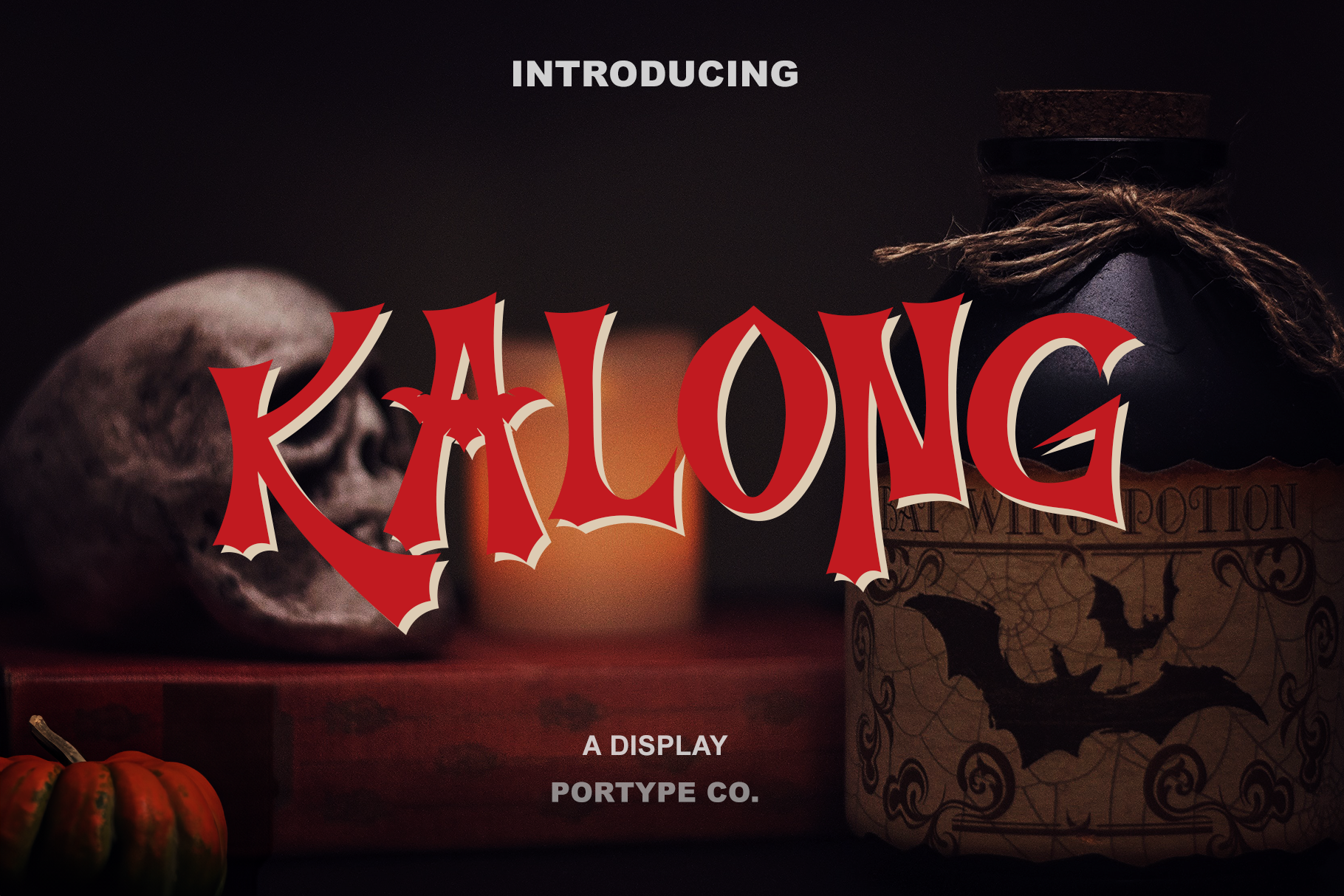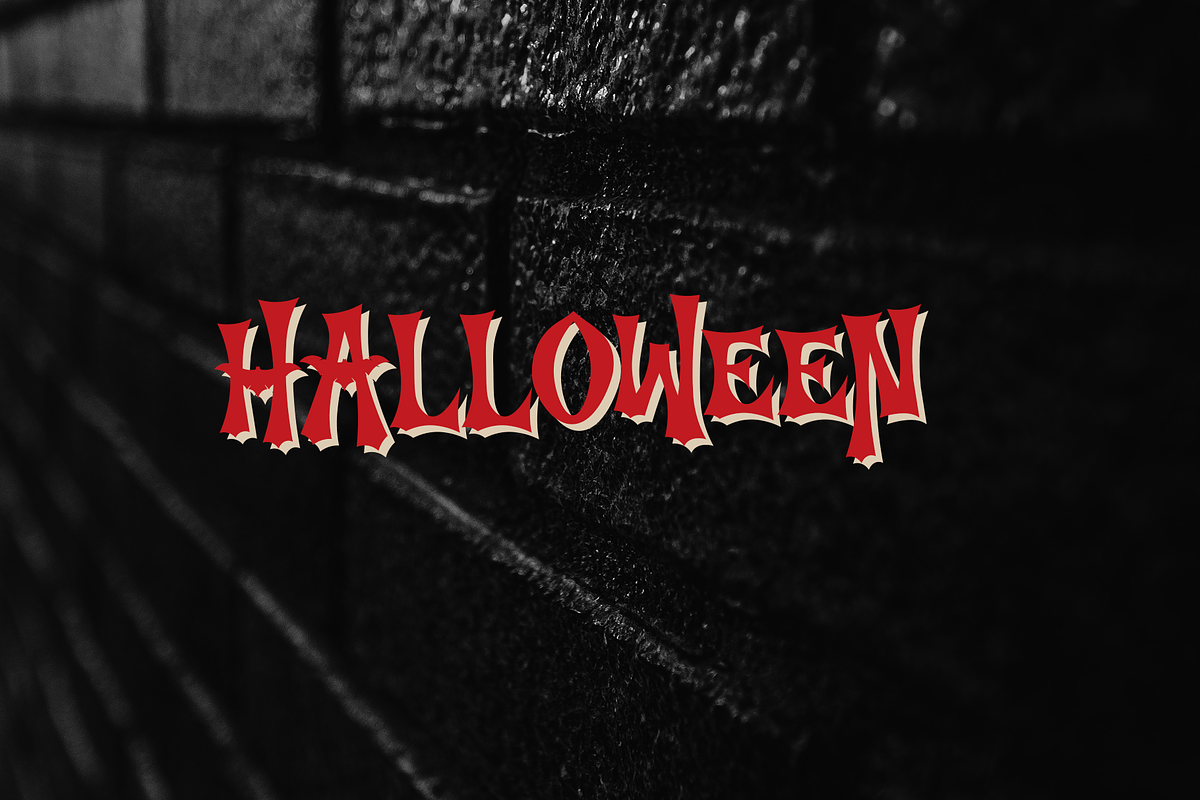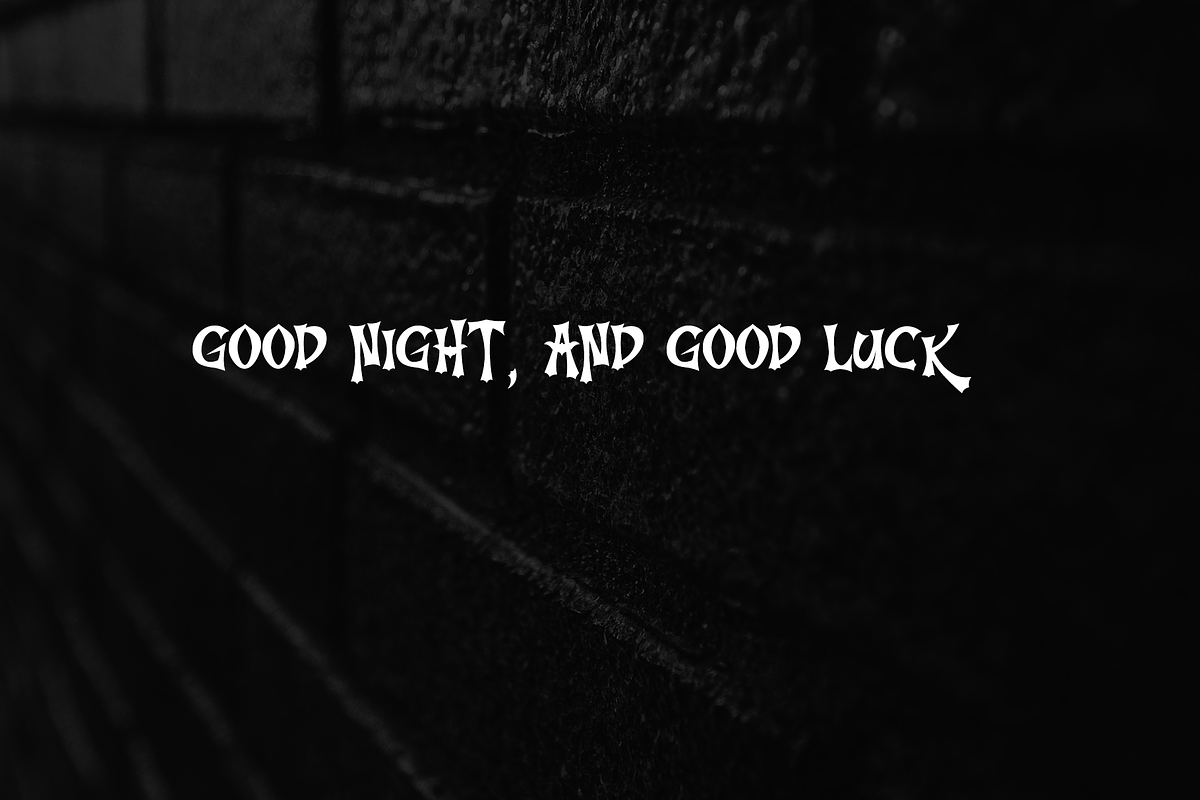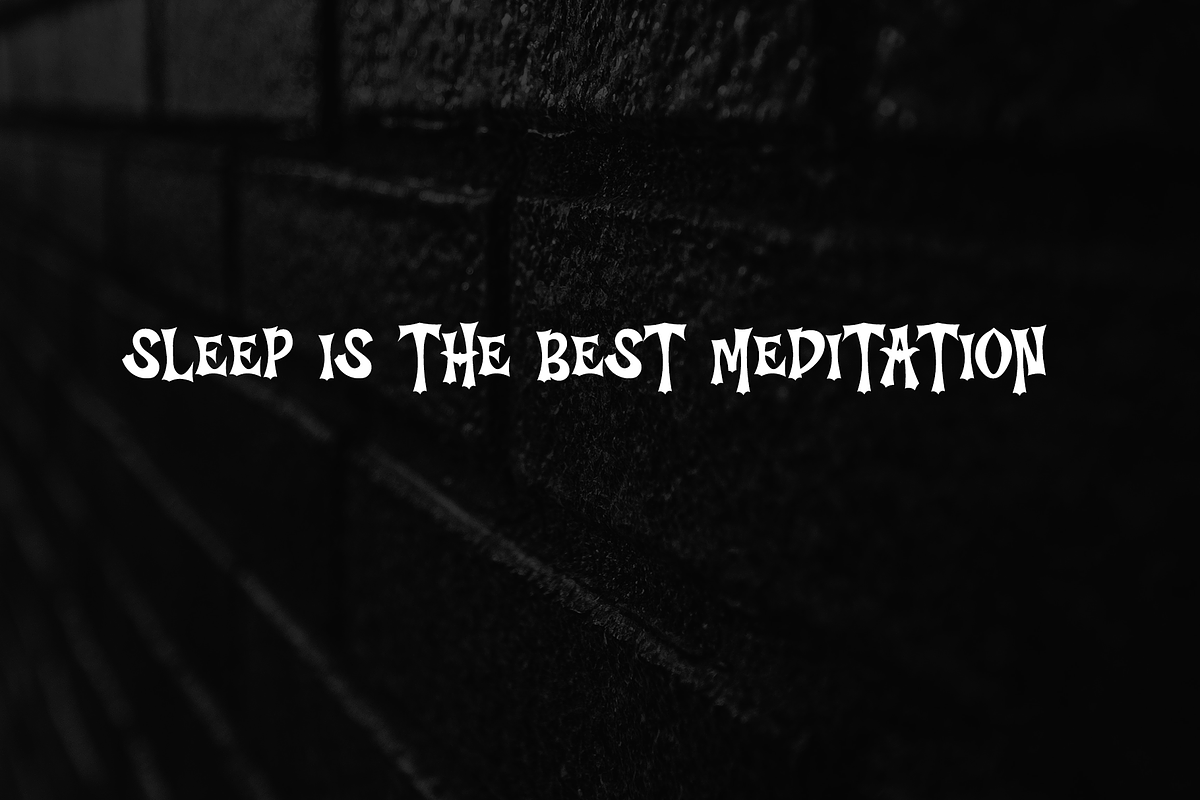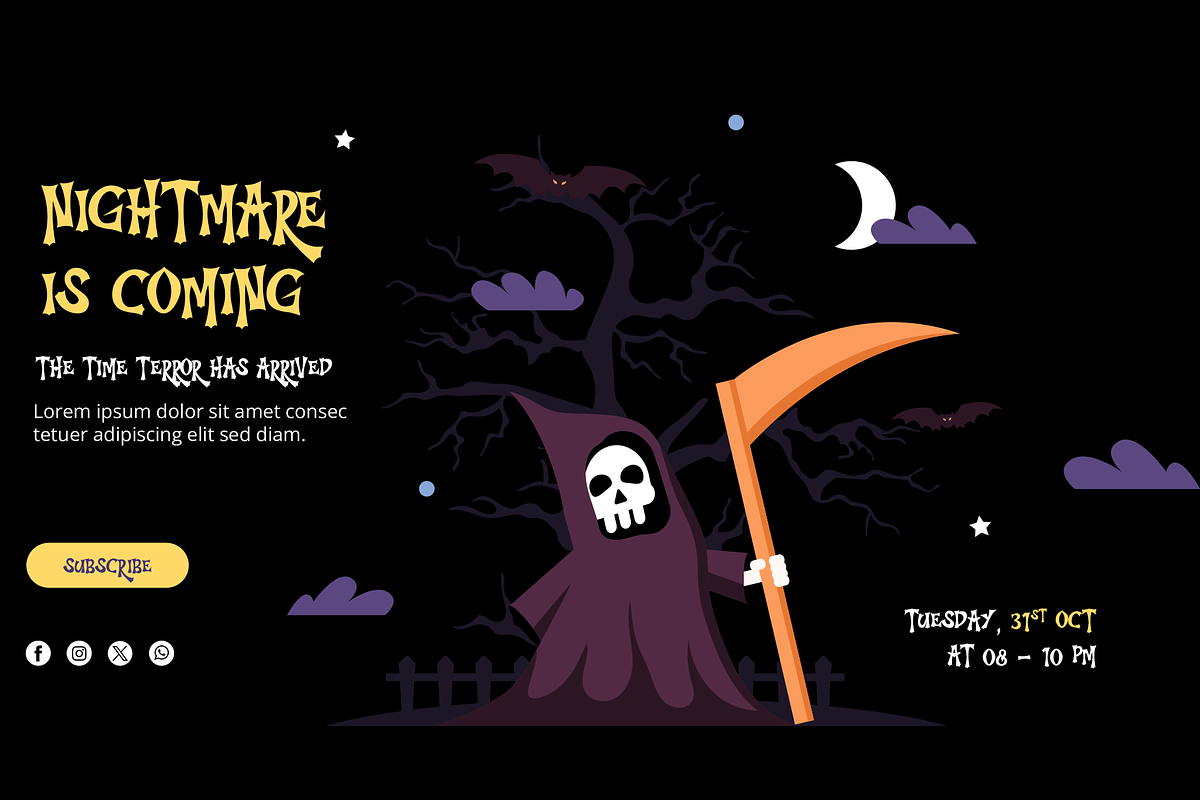
Kalong - Halloween font
Kalong Font embodies the essence of Halloween with its eerie and sinister aesthetic. Crafted with meticulous attention to detail, this font is a spine-chilling choice for any project seeking a touch of macabre charm. The name "Kalong," derived from the Indonesian word for "bat," perfectly encapsulates the font's spooky allure.
Each letter in Kalong Font is meticulously designed, drawing inspiration from the mysterious and haunting elements often associated with Halloween. Its jagged edges, asymmetric strokes, and unsettling curves create an unsettling yet captivating vibe, reminiscent of the eerie shadows cast on a moonlit night.
Whether used for party invitations, haunted house flyers, spooky posters, or social media graphics, Kalong Font brings an air of mystery and suspense to any project. Its versatility allows designers to conjure up a haunting atmosphere while maintaining readability, making it an ideal choice for conveying the spooky spirit of Halloween in typography.